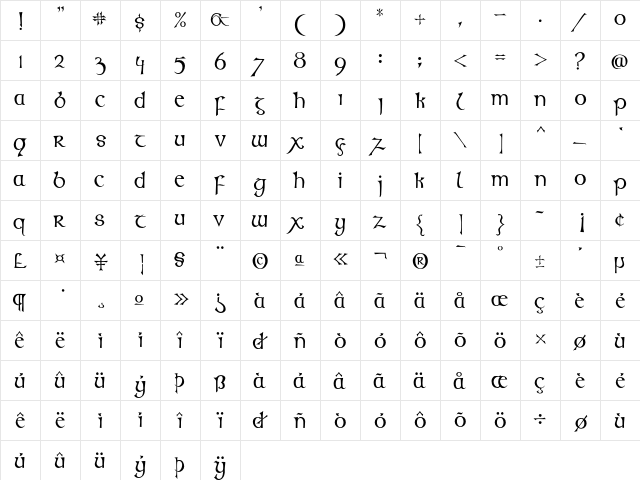
Kells Round Font Preview
Kells Round
Design Context for Kells Typeface
Kells uses gentle rounded endings to create a warm, inviting typographic personality — less corporate than geometric sans, more refined than playful display fonts.
Well-suited to UI design, mobile interfaces, and any brand that wants approachability without sacrificing clarity.
Font Pairing: Pairs well with a rounded or humanist sans for body copy, maintaining the friendly tone without relying on Kells to carry extended reading.
Pro Tip: Use Kells for UI elements, app interfaces, and anywhere a friendly, approachable tone needs to be maintained without sacrificing clarity.